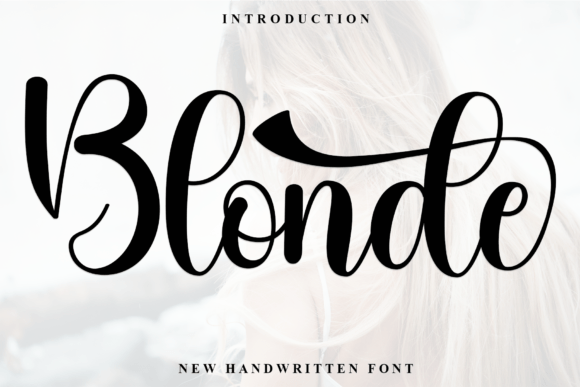
The Magic of Blonde Font: Adding a Touch of Holiday Cheer to Your Designs
Ah, the holiday season is upon us, and as designers, crafters, and creative hobbyists, we’re always on the lookout for that perfect font to capture the spirit of the season. I still remember the year I was working on a festive holiday project, and I just couldn’t find the right font to bring it all together. My client wanted something cheerful, nostalgic, and fun, but not too over-the-top. That’s when I stumbled upon Blonde Font, and it instantly became my go-to for all things holiday.
An Honest Review of Blonde Font
- ✨ Festive and Happy: Blonde Font is designed to bring a smile to your face. Its decorative elements and unique flair make it perfect for holiday-themed projects.
- 🎉 Perfect for Holiday Projects: From greeting cards to gift labels, Blonde Font is the perfect addition to your holiday designs.
Now, let’s talk about a few small quirks ⚠️. One thing to note is that Blonde Font might not be the best choice for body text or long paragraphs. Its decorative nature makes it more suitable for headlines, titles, and short phrases. Additionally, some users might find the font a bit too playful for certain projects, but that’s just a matter of personal taste 🤔.
The Backstory Behind Blonde Font
While the origins of Blonde Font might be shrouded in mystery, it’s easy to imagine a designer sitting by the fireplace, surrounded by holiday decorations and inspiration. Perhaps they wanted to create a font that captured the essence of a winter wonderland, with all its magic and cheer. Whatever the story, Blonde Font certainly delivers on its promise of festive fun.
| What makes Blonde Font special for holiday designs? | Blonde Font’s decorative elements and unique flair make it perfect for adding a touch of holiday cheer to your designs. |
| Can I use Blonde Font for non-holiday projects? | While Blonde Font is designed with the holiday season in mind, its unique charm can be applied to other projects where a festive or playful touch is desired. |